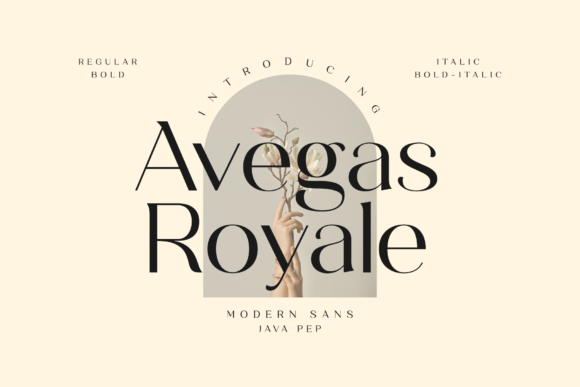
Avegas Royale Font
Avegas Royale is an elegant and modern serif font. Masterfully designed to become a true favorite, this font has the potential to bring each of your creative ideas to the highest level!